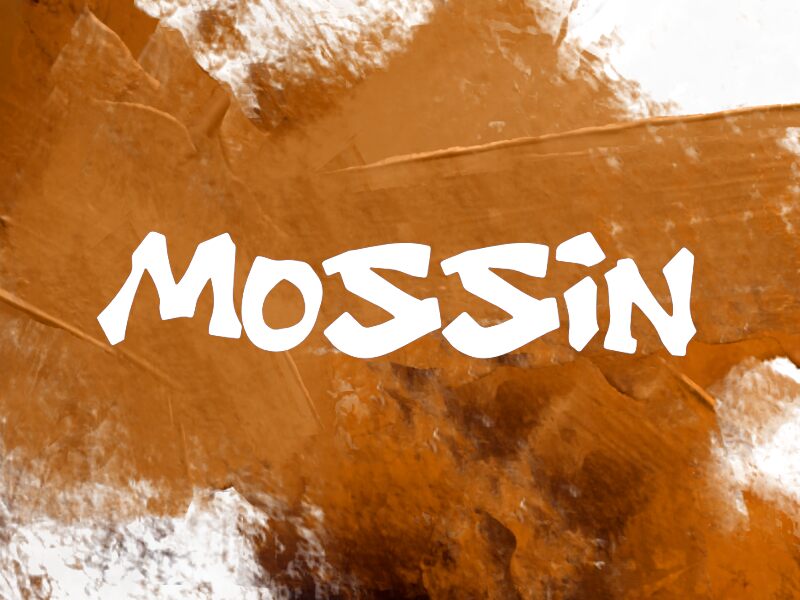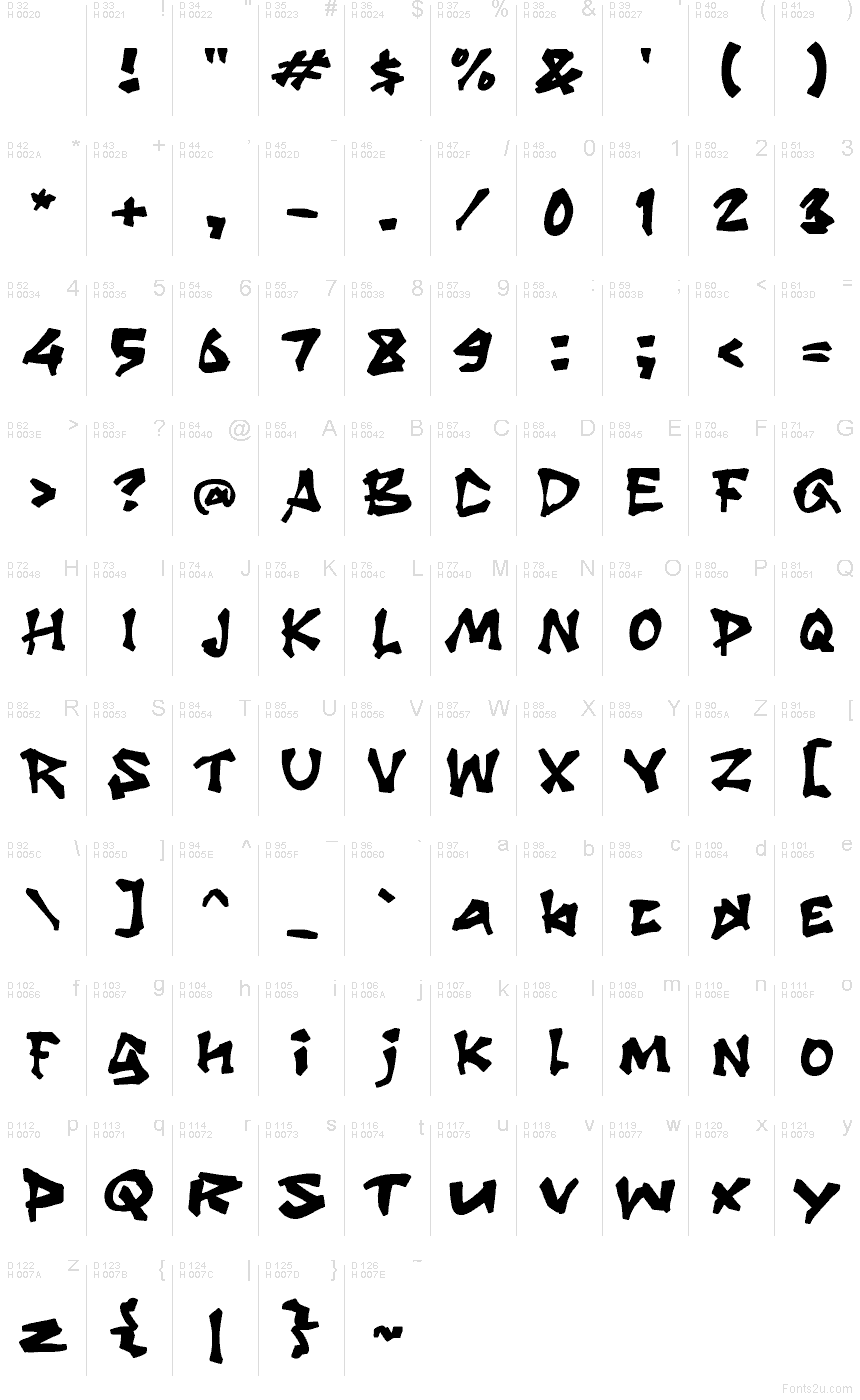
Mossin font by wep is a free graffiti font that hits with the raw, marker-drawn energy of a wall tag. The letters swell and twist like wet ink dragged fast across concrete, with chunky strokes and loose, slightly crooked forms that feel spontaneous rather than polished. It has a bold, in-your-face rhythm that reads instantly as street culture, without becoming too messy to use in real layouts.
Using Mossin, you can inject that urban edge into album covers, streetwear logos, skate or BMX branding, event posters, social graphics, and YouTube or Twitch visuals. This free font shines at large sizes where its thick, inky forms can really breathe. Pair Mossin with a clean, neutral sans serif for body text to keep your designs readable while the headline does all the shouting.